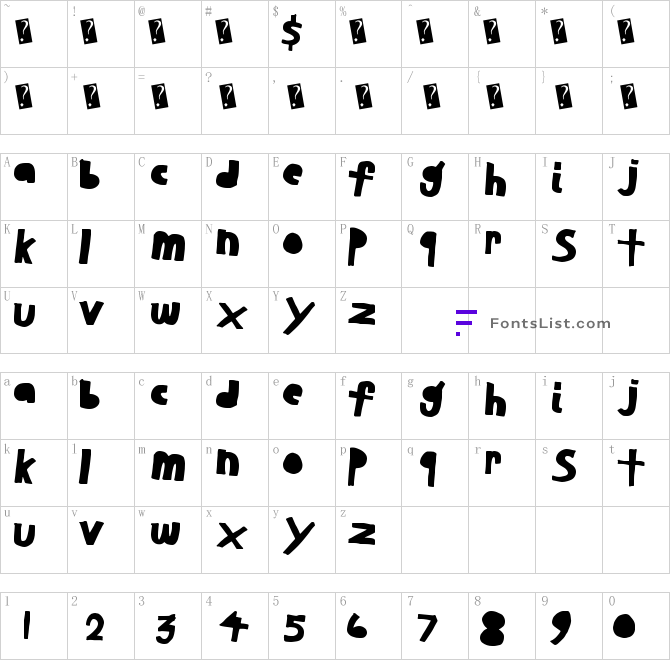
- Font Name:AnotherStudent
AnotherStudent.ttf is a very beautiful artistic font, AnotherStudent.ttf is widely used in the design and printing of various books and pictures,AnotherStudent.ttf has a strong visual impact,AnotherStudent.ttf is a commonly used font in newspapers, magazines and books, and is used in posters, e-commerce Poster design, store design, logo design, font design and other fields.AnotherStudent.